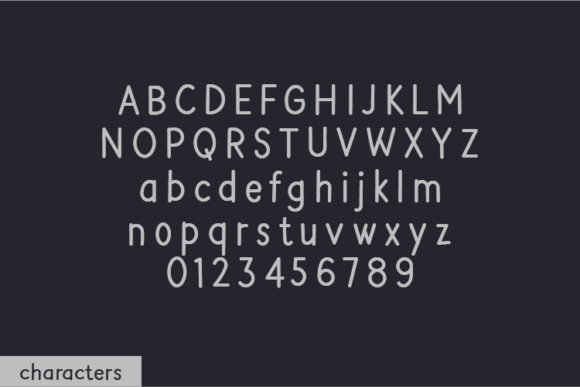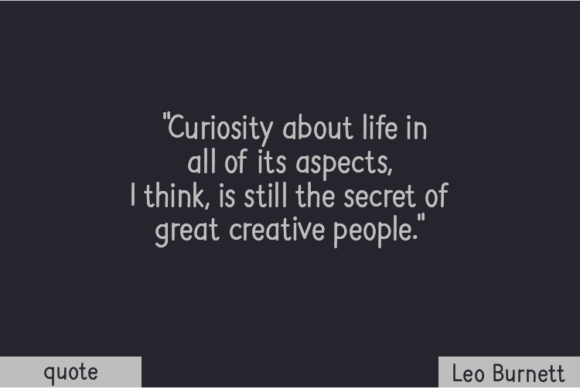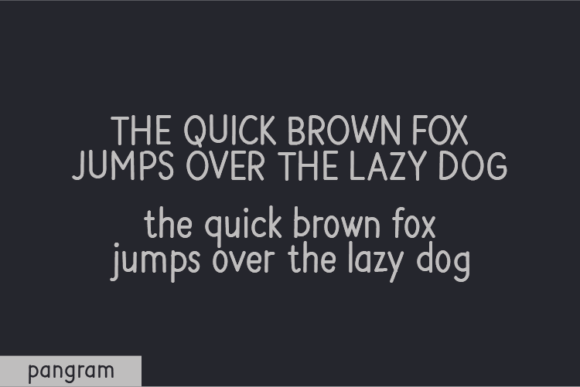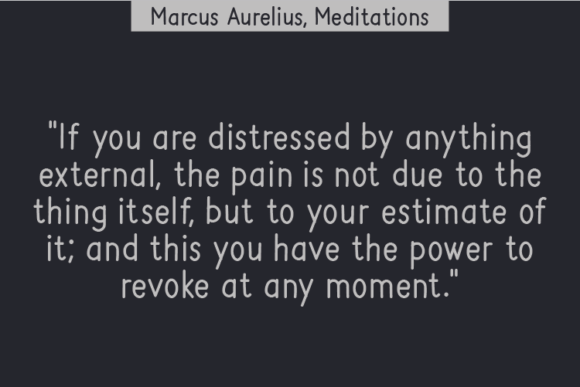
Introduction to Latterman Font Font
Fonts play a crucial role in design, and the Latterman Font font is a typeface that brings both character and versatility to any project. Whether you’re working on a branding project, a website, or a print design, the Latterman Font font offers a unique style that can elevate your work.
| π Font Name | Latterman Font |
| π€ Author | Hanna Bie |
Latterman is a natural handwritten font made without changing a single node in each characterβs indentation β this makes this font very interesting and unique.
Perfect for quotes, notes, tees, and any product design .
Key Features of Latterman Font Font
Why Choose Latterman Font Font?
The Latterman Font font is more than just a typeface β it’s a design tool that helps you communicate your message with style and clarity. Its unique character set and versatile design make it suitable for a wide range of applications, from elegant invitations to bold headlines.
With its carefully crafted letterforms and balanced proportions, the Latterman Font font ensures readability and visual appeal across all mediums.
What makes Latterman Font font special?
The Latterman Font font stands out with its unique design, exceptional readability, and versatility across various design applications.